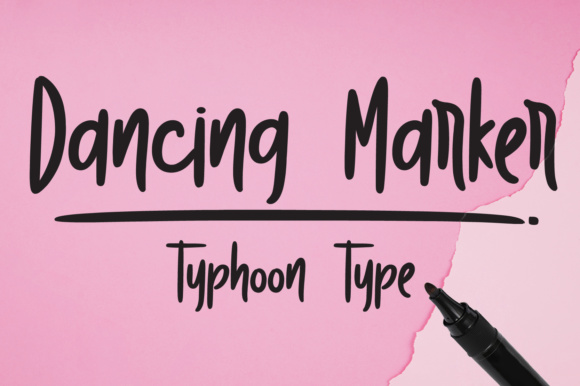
Dancing Marker Font
About Dancing Marker Font
Dancing Marker is a gorgeous and simple handwritten font, perfect for giving your work an approachable and legible feel. This font resembles the look of using a marker, and can add a bold presence to your work.